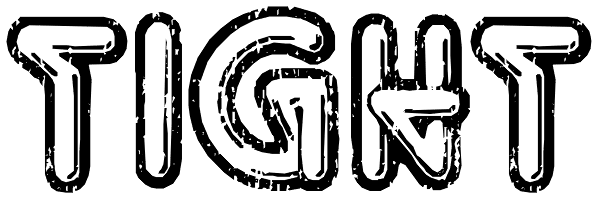
Tight
The mid to late 1970s: an age of disco and more disco. In its day, disco was a relentless onslaught to at least three senses. Decades later, all is forgiven. Pretend to celebrate those wretched days with a vintage disco t-shirt font derived from...